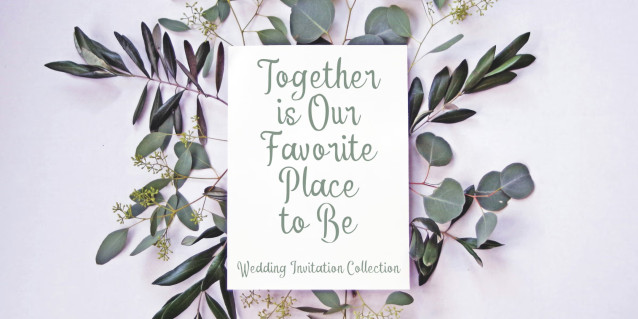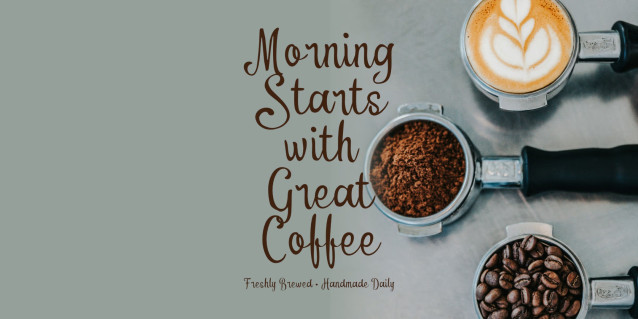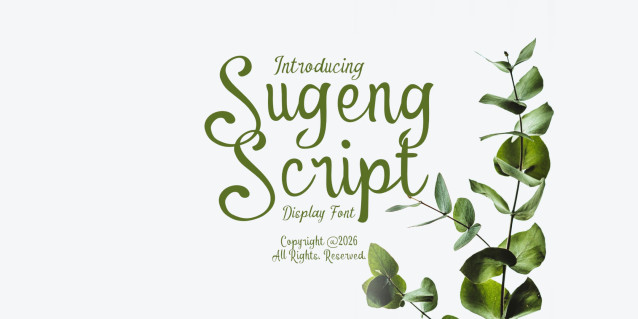
Sugeng Script is a charming handwritten display font that blends playful curves with a natural flowing style. Designed to bring warmth and personality to your creative projects, this font features smooth letterforms, elegant swashes, and a handcrafted touch that makes every design feel authentic.
Whether you’re creating logos, branding, packaging, wedding invitations, social media graphics, posters, or merchandise, Sugeng Script delivers a friendly and eye-catching appearance. Its versatile style makes it perfect for both modern and vintage-inspired designs, helping your typography stand out with effortless charm.